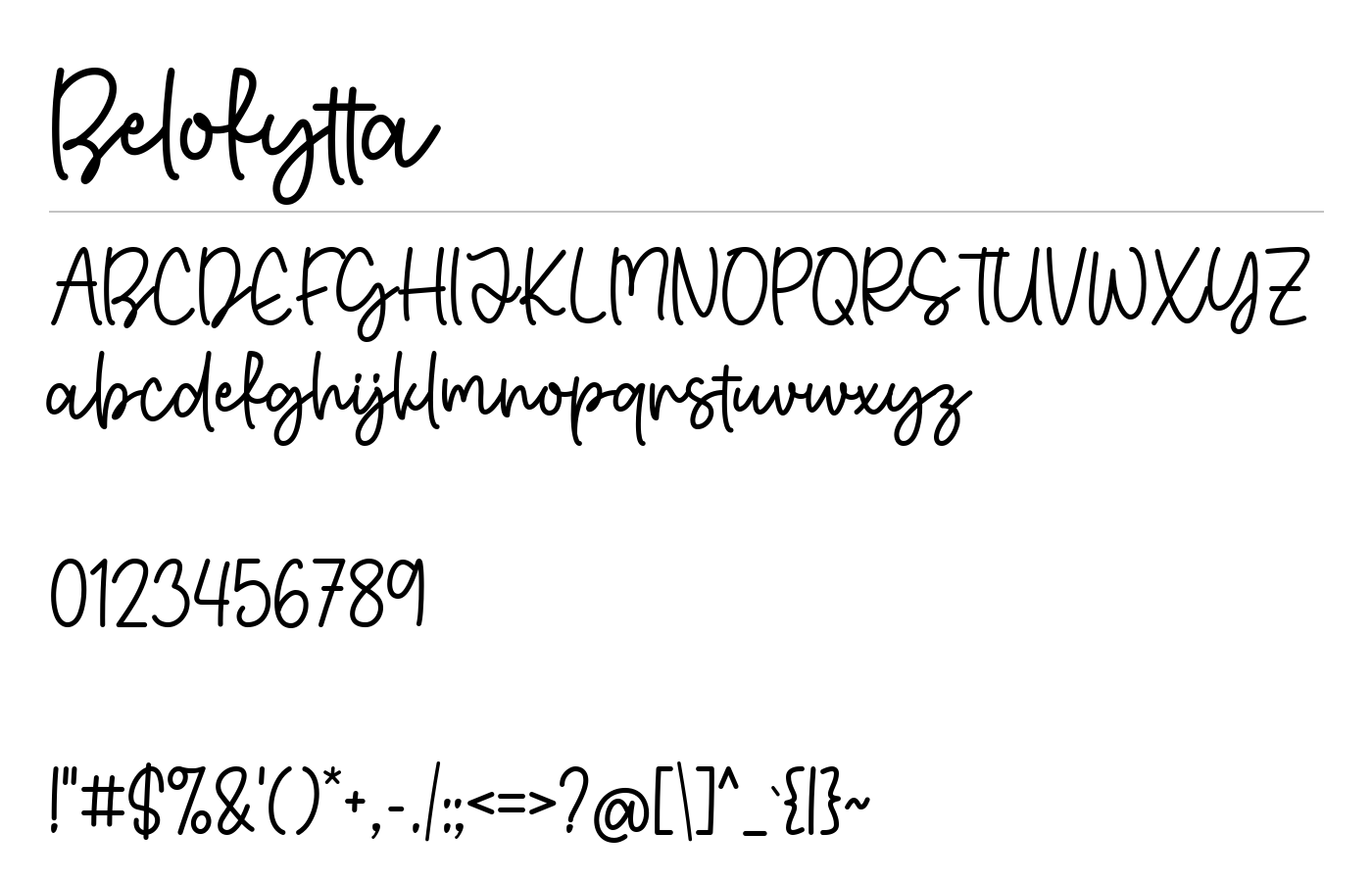
Belofytta is a playful and casual handwritten script font with a light and airy feel. Its tall, slightly irregular letterforms and smooth curves give it a friendly, approachable personality ideal for creative projects, informal branding, social media, and personal designs. This font works well in headlines or short texts where a warm, human touch is desired.
Belofytta Font
About Belofytta Font